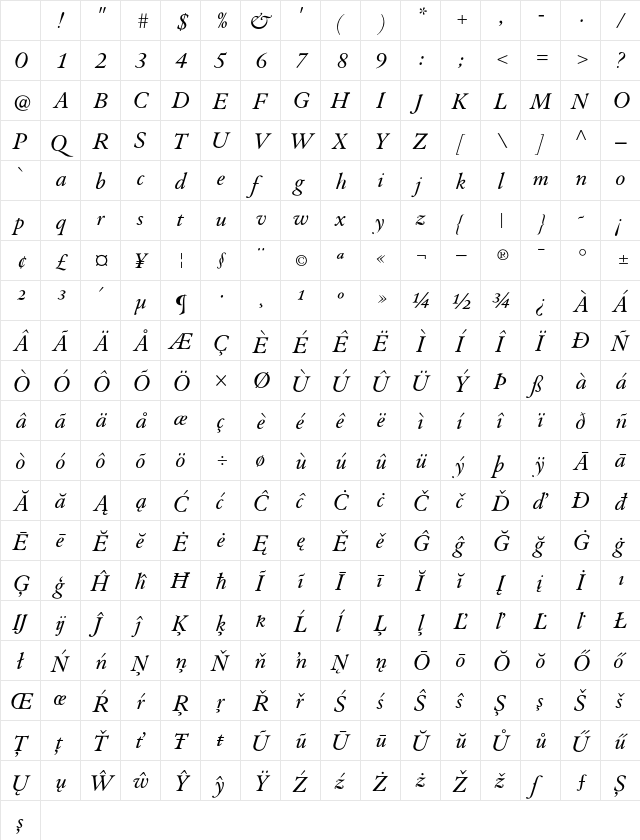
Complete Augereau SemiBold Italic glyph index. Displaying only characters natively supported by Augereau SemiBold Italic font.
Augereau SemiBold is a composed and adaptable typeface that performs quietly and consistently across a wide range of design contexts. The slanted form adds forward momentum and visual energy. Its bold stroke weight gives it real presence on the page.
Pro Tip: Use Augereau SemiBold for emphasis, pull quotes, and subheadings where its slanted energy can add rhythm to the layout.